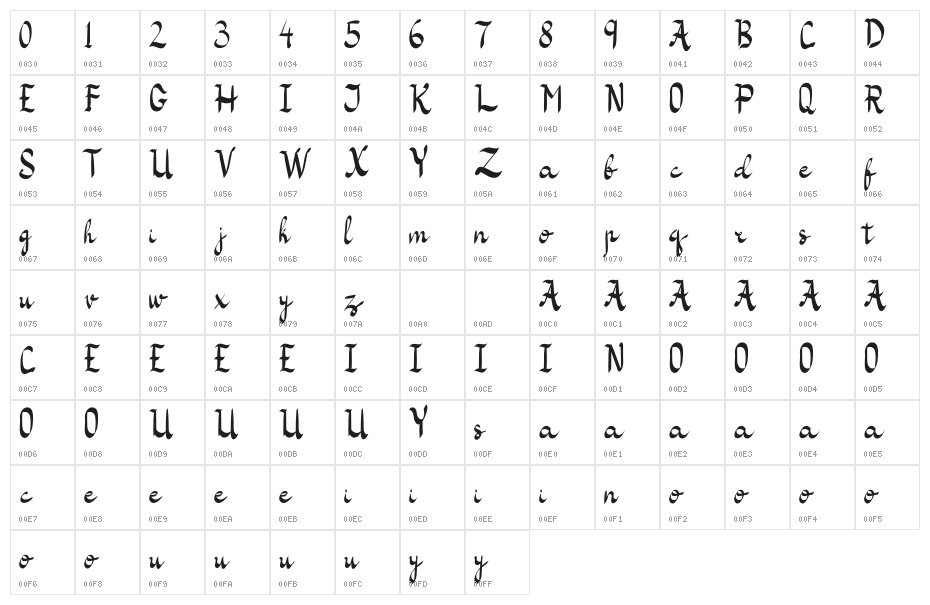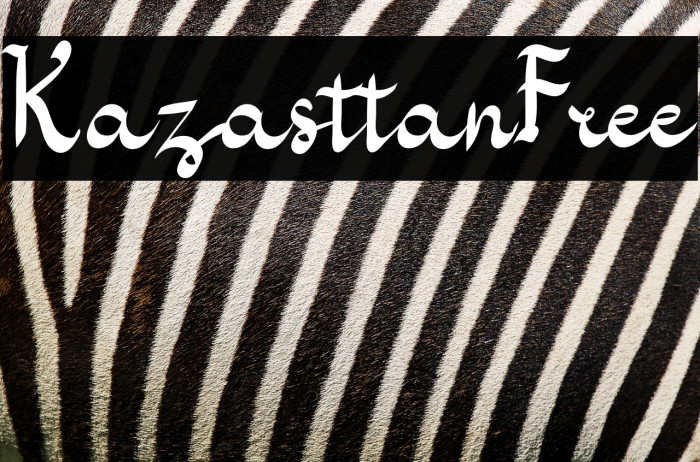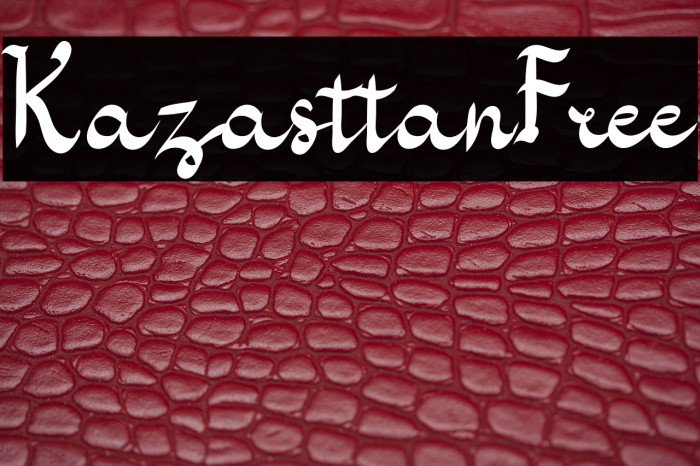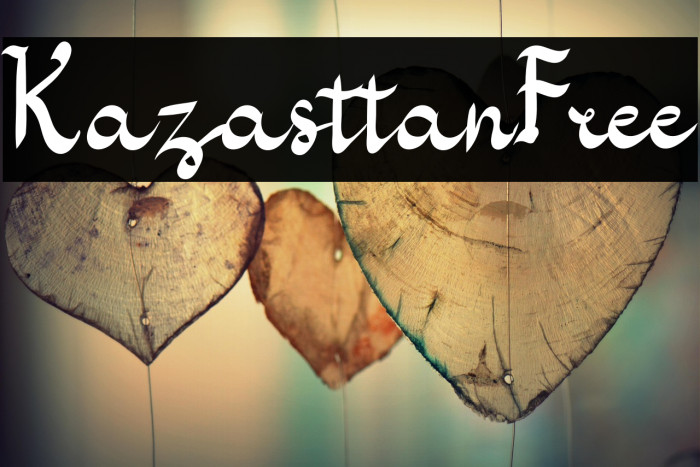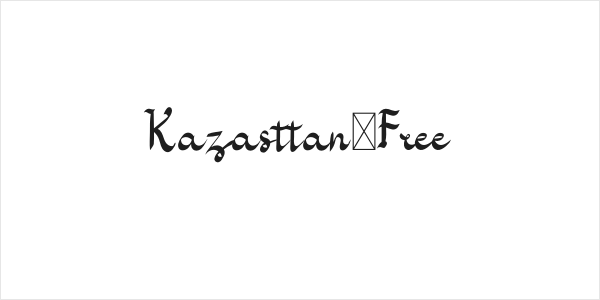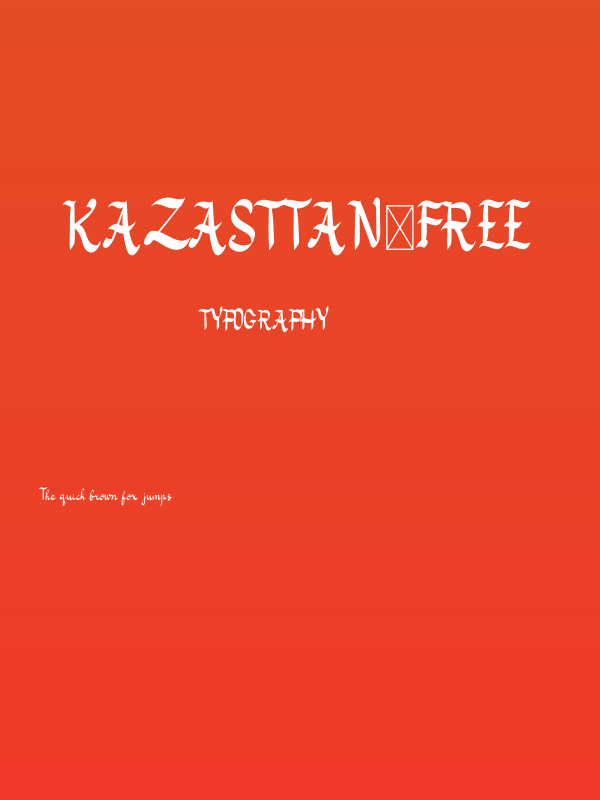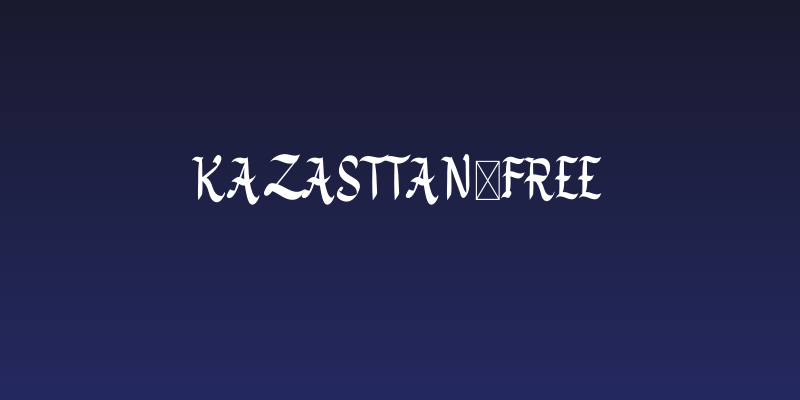
Kazasttan-Free Font
Kazasttan-Free Description
This font features a unique blend of calligraphic and gothic influences, characterized by sharp, angular strokes and a flowing, cursive style. The uppercase letters exhibit a bold, dramatic flair with pointed serifs and a distinct medieval aesthetic. The lowercase letters maintain a fluid, handwritten quality, adding a touch of elegance and sophistication. The numerals are consistent with the overall style, offering a harmonious balance between the ornate and the legible. This font's striking appearance makes it ideal for projects that require a touch of historical or artistic flair.